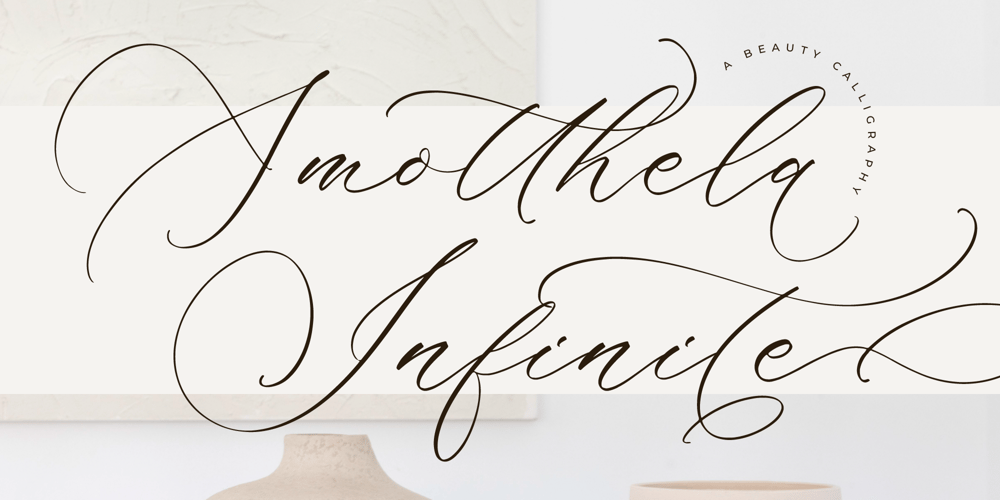
Amotthela Infinite Font Family was designed by Heru Utama Putra and published by Letterena Studios. Amotthela Infinite contains 2 styles and family package options. Amotthela Infinite is a dazzling script font that exudes elegance and charm. With its fluid strokes and intricate details, it captivates the eye and adds a touch of sophistication to any design project. Perfect for invitations, branding, and headlines, Amotthela Infinite brings a sense of luxury and style to your creations.